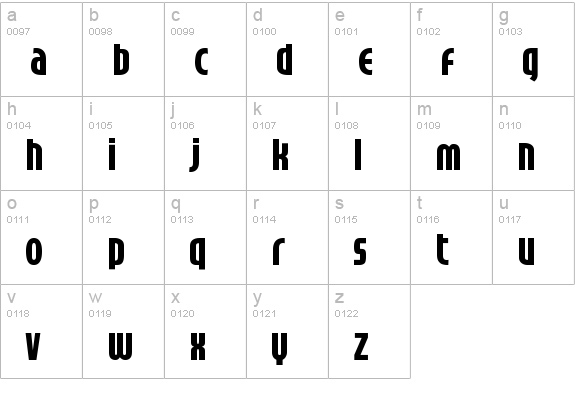
Timbre-Normal Font Details
Timbre-Normal is the standard, neutral variant in the Timbre typeface family \xE2\x80\x94 well suited to general body text, paragraphs, and standard typographic work.
Introducing Timbre-Normal font, a captivating and versatile typeface that exudes elegance and sophistication. With its clean lines and graceful curves, Timbre-Normal is the perfect choice for a wide range of design projects. This font combines the best of both worlds, seamlessly blending a modern aesthetic with a hint of classic charm. Its balanced letterforms and generous spacing ensure optimal legibility, making it ideal for both display and body text. Timbre-Normal font offers a remarkable versatility that allows it to adapt effortlessly to various design styles and applications. Whether you're creating eye-catching logos, elegant wedding invitations, or striking editorial layouts, this font will elevate your designs to new heights. But what sets Timbre-Normal font apart is that it is not only visually stunning, but also freely available to download. You can easily access this font at FontsMarket.com, where you will find a vast collection of high-quality fonts to suit all your creative needs. So go ahead and unleash your creativity with Timbre-Normal font. Its timeless appeal and effortless beauty will captivate your audience and leave a lasting impression. Don't miss out on this opportunity to enhance your designs with a font that is both stunning and free.